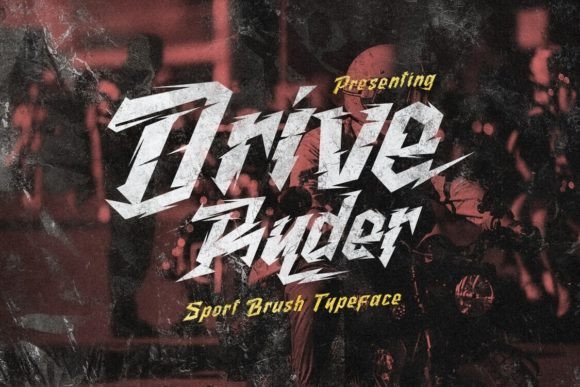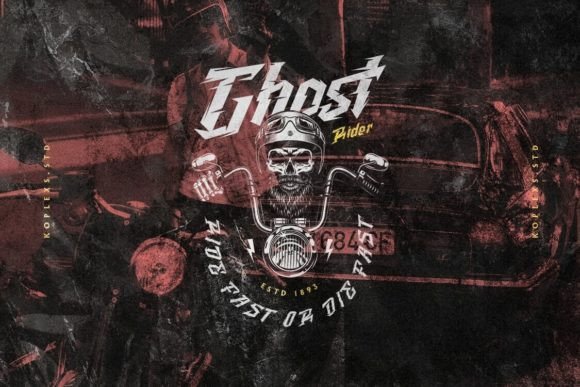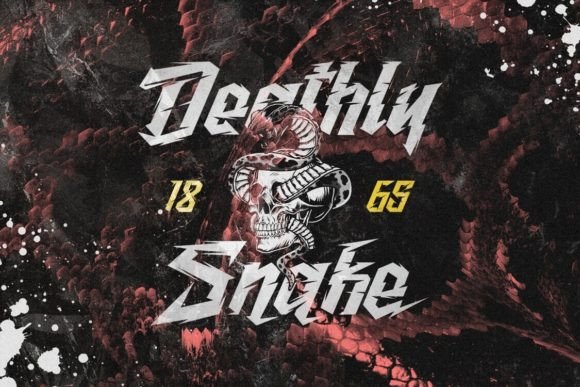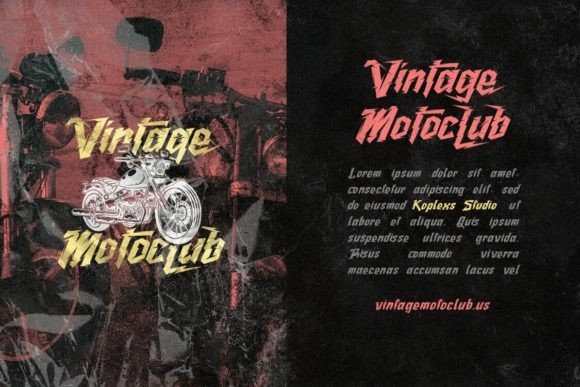
Drive Ryder Font: A Bold Display Font for Sport Logo Design
About the Drive Ryder Font
We are excited to introduce Drive Ryder Font, a must-have typeface for any serious designer. Drive Ryder is a new product coming to the attention of designers and typography enthusiasts. This bold and powerful font with a sense of speed is perfect for creating sports racing themed designs. It can be used to create logo designs, car stickers, racing event titles and so on with a sports race theme as well as various design projects, from branding to packaging and printed materials.
Drive Ryder excels in headlines, short impactful titles, and branding applications where a strong, assertive presence is desired. Its bold strokes work particularly well for logos, posters, and packaging related to high-performance vehicles, sports, and action-oriented brands. Avoid using it for body text or lengthy paragraphs; its weight and aggressive forms are not suitable for extended reading.
This font’s core personality is bold and energetic, conveying speed and power. It projects a modern, masculine feel. To soften its impact and create visual balance, pair Drive Ryder with a clean sans-serif like Open Sans for body copy, or a more geometric sans-serif for a futuristic feel. For a more refined approach, a subtle serif like Garamond or a script font with delicate flourishes can provide an elegant contrast.
Consider Drive Ryder for projects needing a high-octane aesthetic. Brands focused on automotive performance, extreme sports, or competitive gaming could effectively leverage its personality.